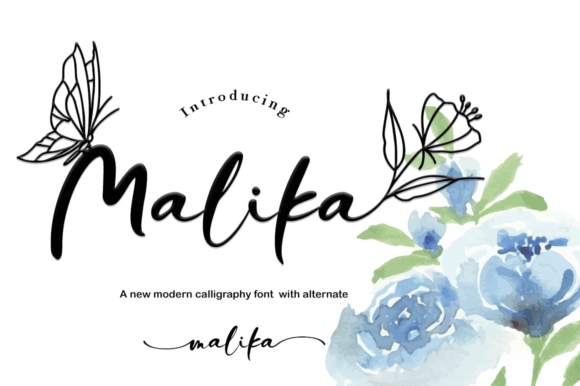
Unleash your creativity with Malika Script, the enchanting calligraphy font that exudes elegance and charm. This masterpiece by CocoDesign captivates with its flowing lines, delicate swashes, and timeless appeal.
Transport yourself to a world of artistry as Malika Script graces your designs, adding a touch of sophistication and uniqueness. Its versatility knows no bounds, making it the perfect choice for a diverse range of projects, from logos and branding to wedding invitations and product packaging.
Step into the world of visual storytelling, where Malika Script weaves its magic, captivating your audience with its enchanting allure. Its intricate details and graceful curves bring life to your words, transforming them into works of art.
Whether you're a seasoned designer or just starting your creative journey, Malika Script is your gateway to creating designs that resonate and leave a lasting impression. Its user-friendly nature makes it accessible to everyone, allowing you to unleash your inner artist without technical limitations.
Don't settle for ordinary fonts; embrace the extraordinary with Malika Script. Its timeless beauty transcends trends, ensuring your designs remain captivating for years to come.
Elevate your design game with Malika Script and let your creativity soar. Experience the joy of creating designs that captivate, inspire, and leave a lasting impact.